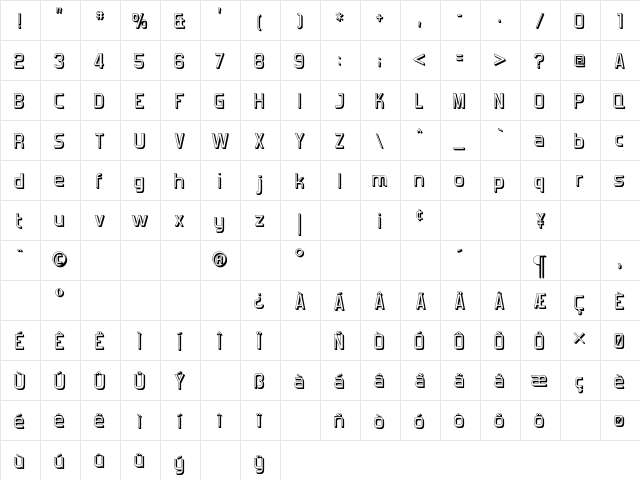
Forgotten Futurist Shadow Regular
Design Context for Forgotten Futurist Shadow Typeface
Forgotten Futurist Shadow has a distinctly futuristic character, with geometric precision and clean angles that feel at home in technology, gaming, and sci-fi contexts.